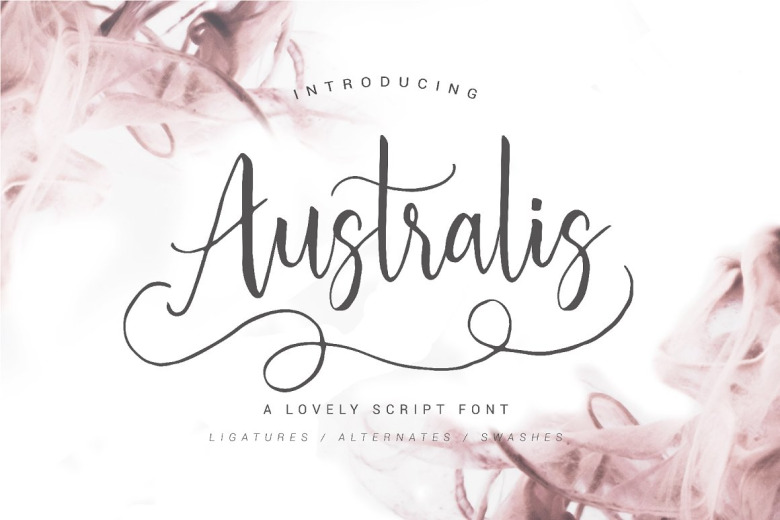
Australis Script Font
Introducing Australis Font. It is designed and shared by Alice Whales. This font is beautifully made with a natural hand writing. As you can see the flow of the bold and thin lines creates a perfect hand lettering just by typing on your keyboard! It has many open type features like ligatures, stylistic alternate, and swashes, also support multilanguage. This typeface is based on manual handwriting which is very suitable for any design needs you have especially for invitation project, wedding, fashion, etc